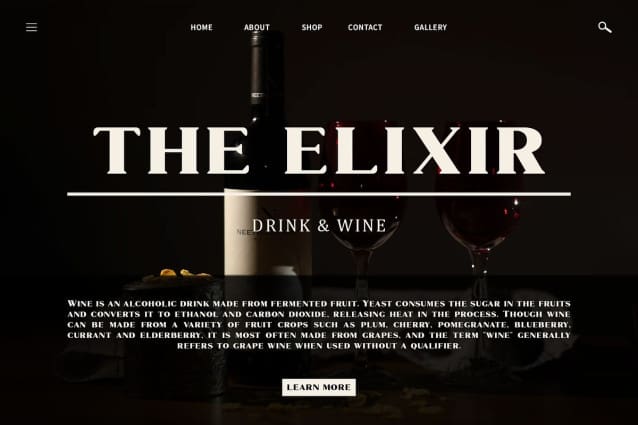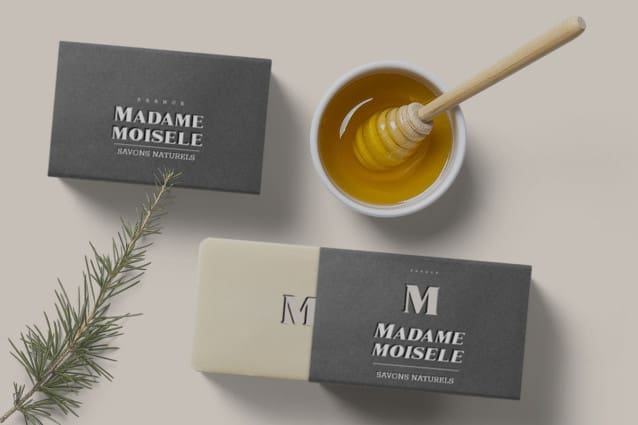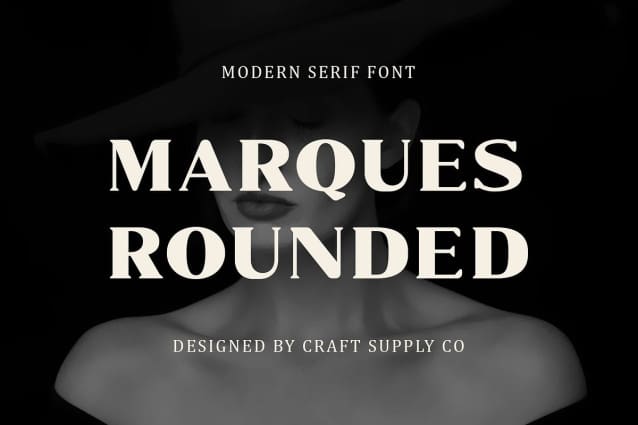
Marques Rounded Font
Marques Rounded Font: Elevating Elegance in Serif Typography. High-Contrast Sophistication Marques Rounded boasts high contrast serif between thick and thin strokes, exuding an air of sophistication and refinement.
Elegance Personified With its sleek and polished appearance, This font embodies elegance in every curve and serif, making it the epitome of refined typography.
Versatile Application Crafted with versatility as a paramount consideration, This font effortlessly shines in a myriad of contexts, seamlessly transitioning from editorial layouts to branding materials. Its timeless elegance transcends trends, ensuring enduring appeal across diverse design applications.
Enhanced Legibility Despite its high contrast, This font maintains excellent legibility, ensuring that your message is conveyed with clarity and style.
The Essence of Elegance This font elevates the elegance of serif typography with its high contrast and refined appearance. Versatile and legible, it is the perfect choice for projects that require a touch of sophistication and timeless appeal.